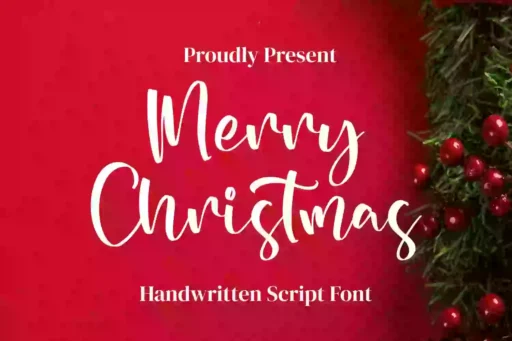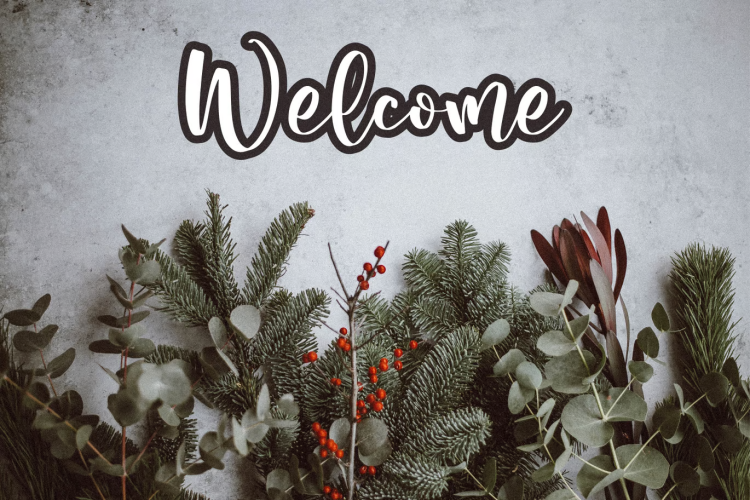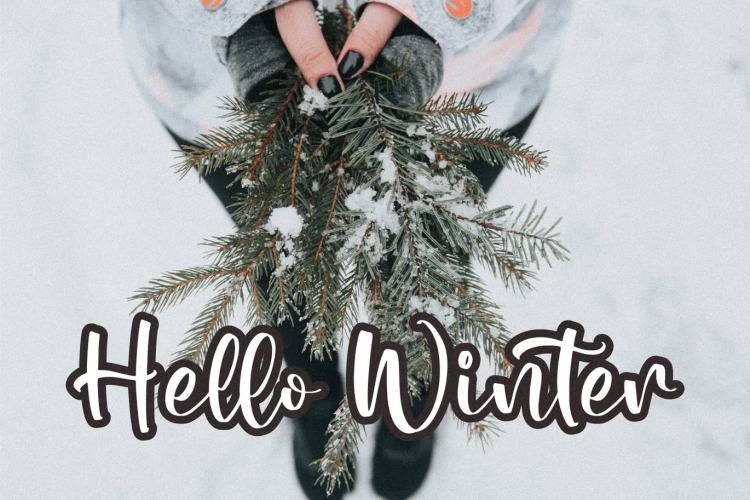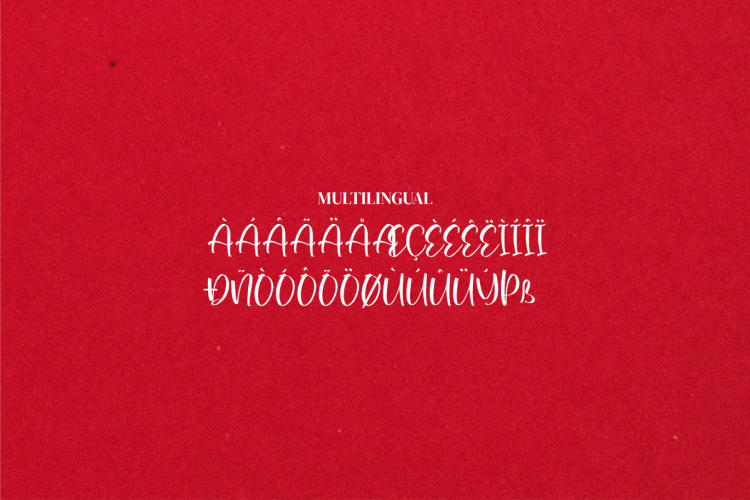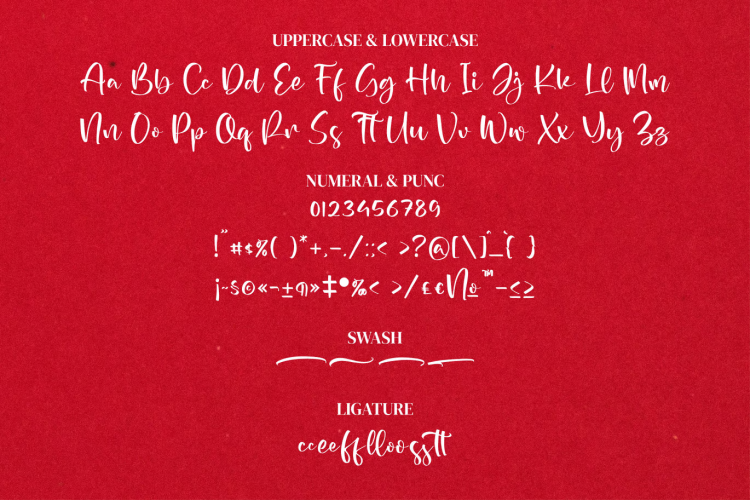
Merry Christmas Font
Merry Christmas is a handwritten script font by Integritype Studio. It’s a premium script font with a stylish and elegant look. Perfect for projects that need a unique and high-end feel.
Ligature, Alternate & Multilingu
Merry Christmas Font is a Script And Handwritten font that brings a professional and versatile look to your projects. Merry Christmas is a handwritten script font by Integritype Studio.